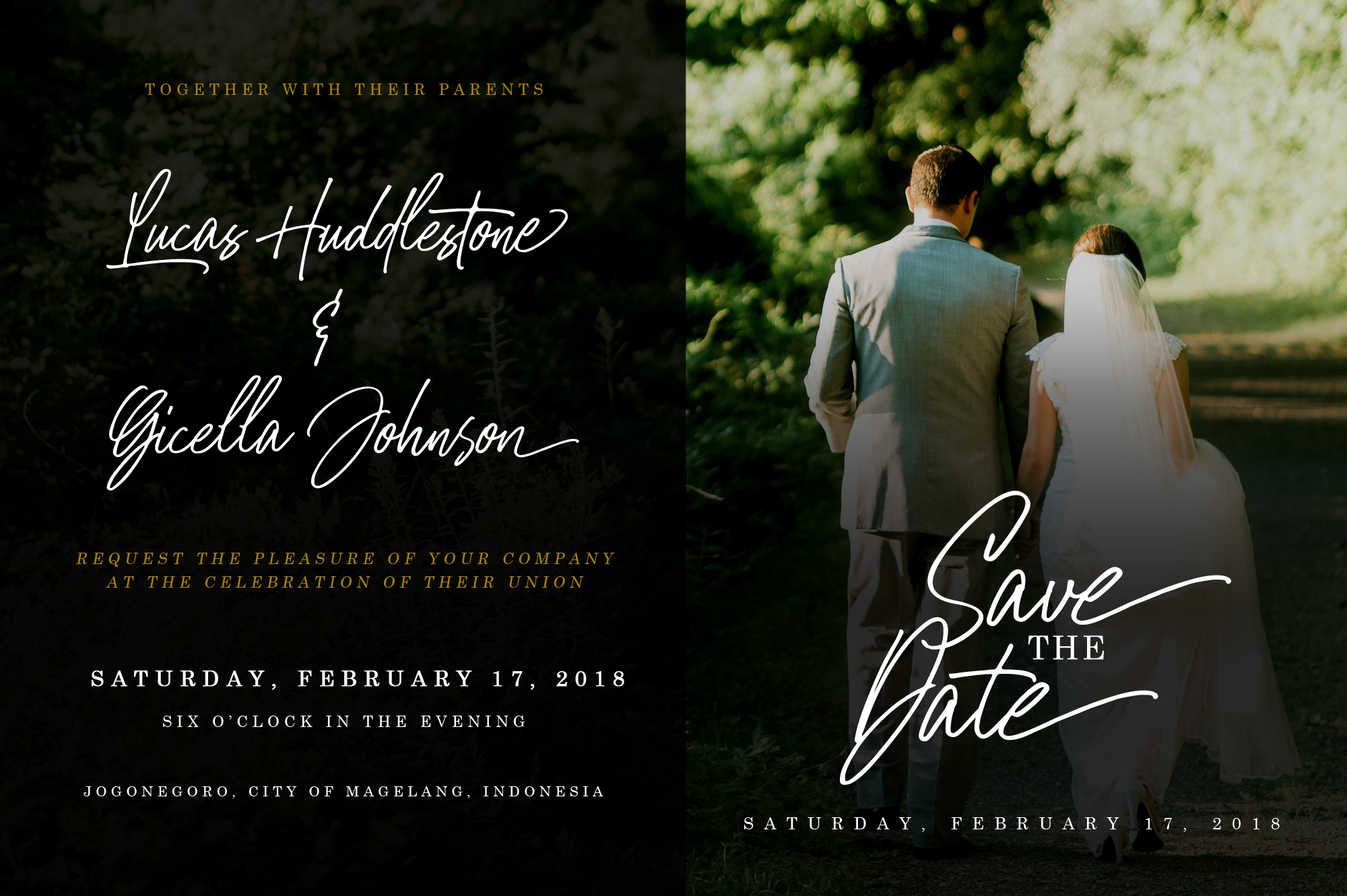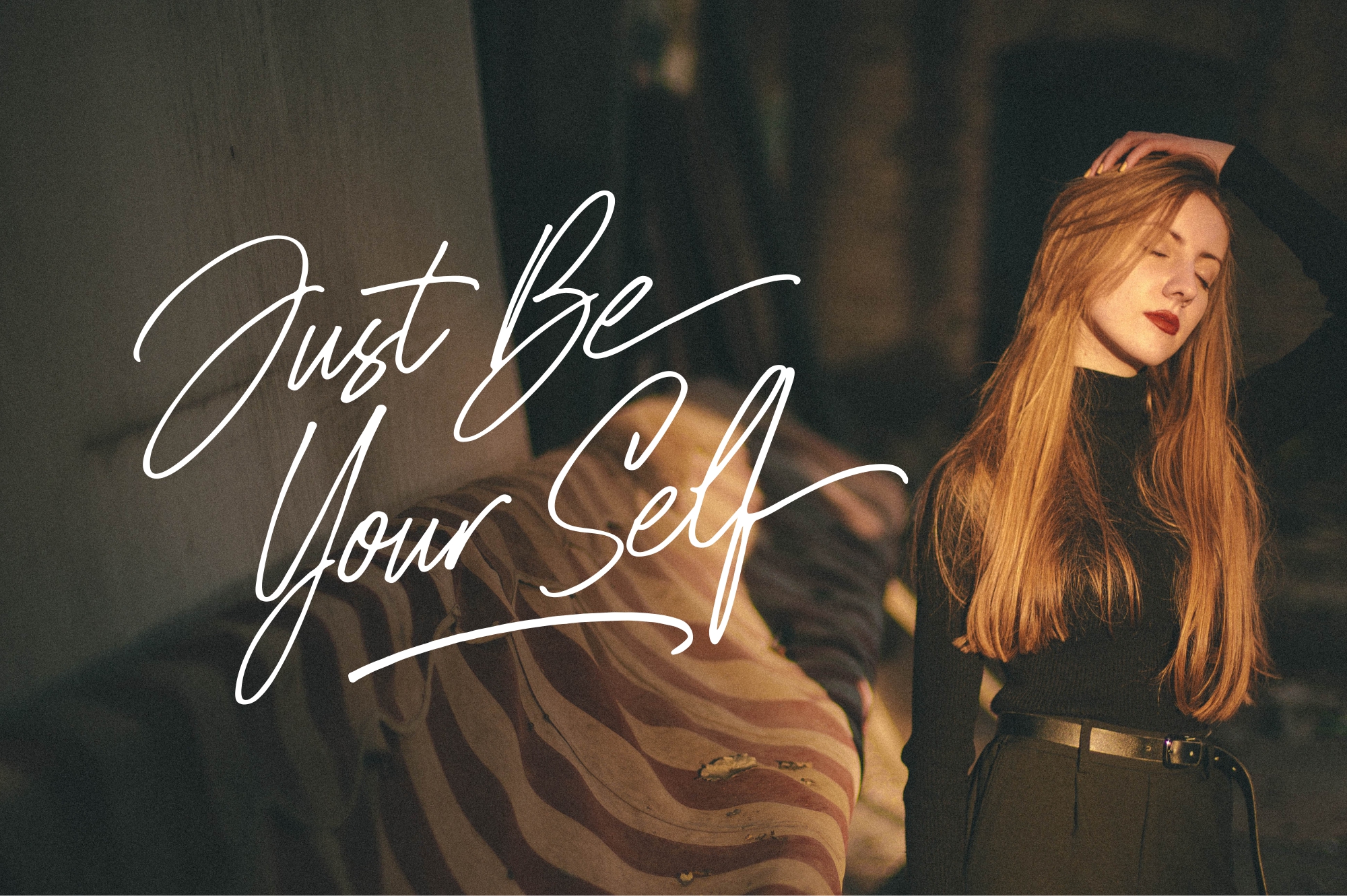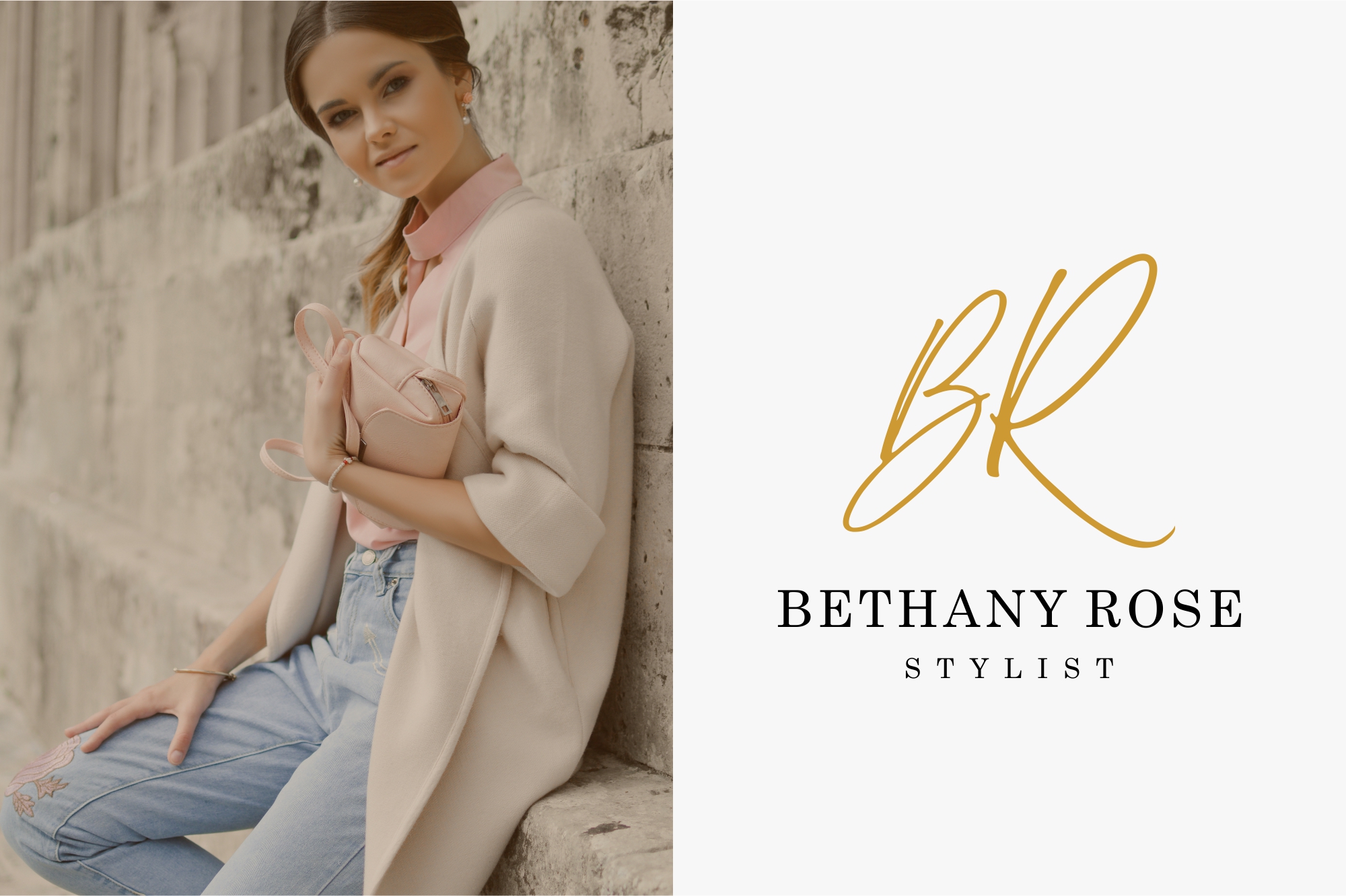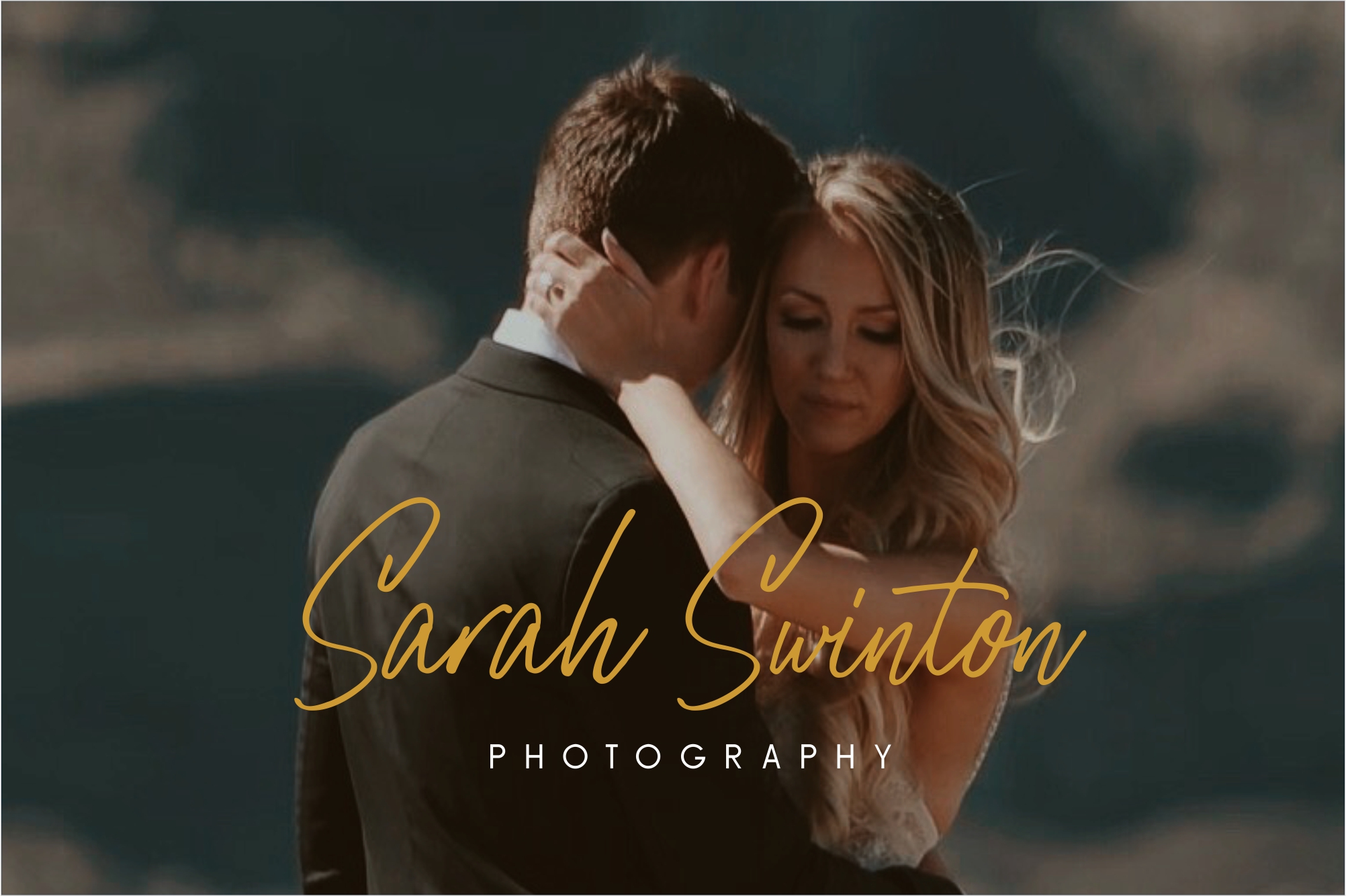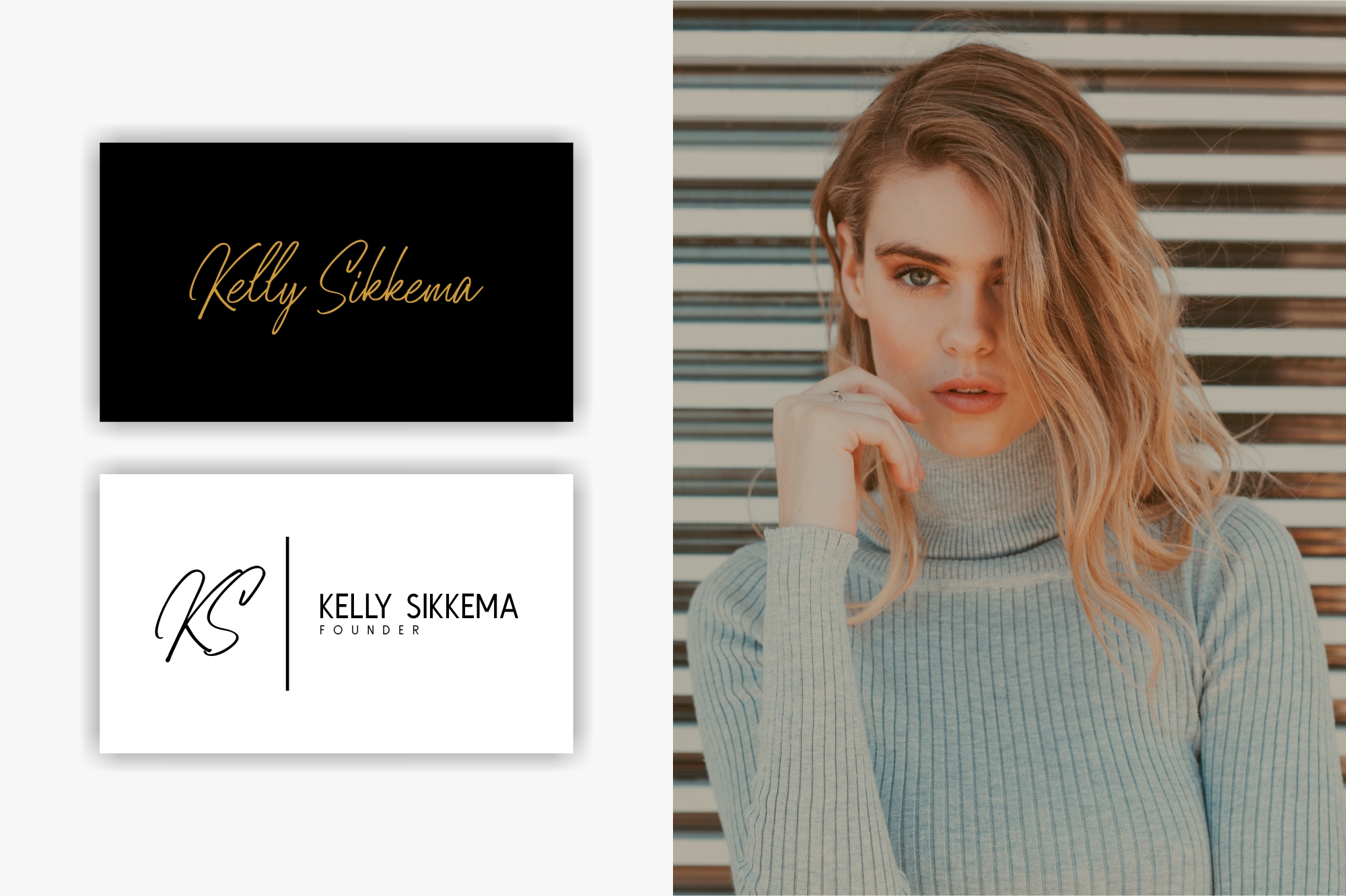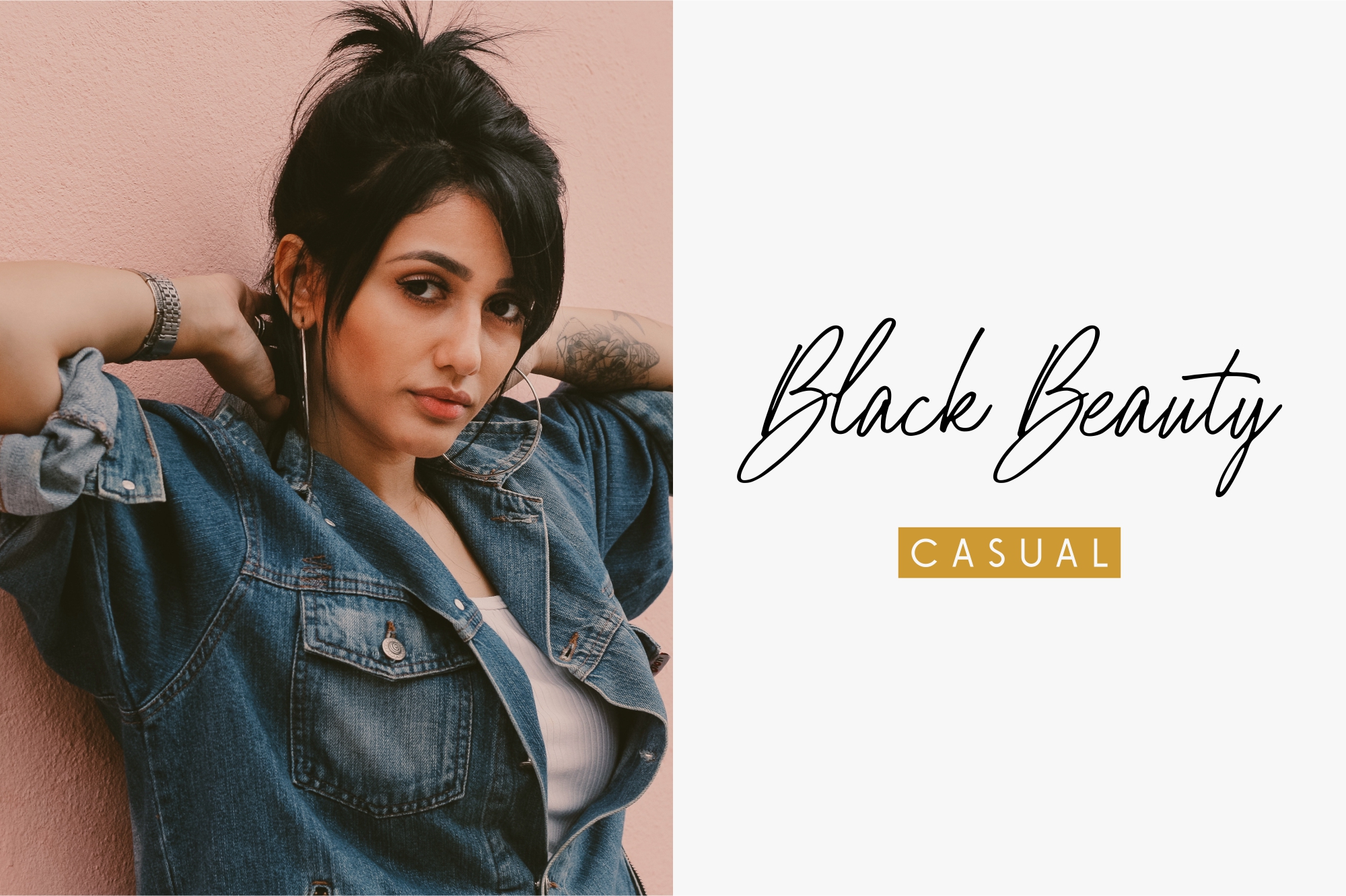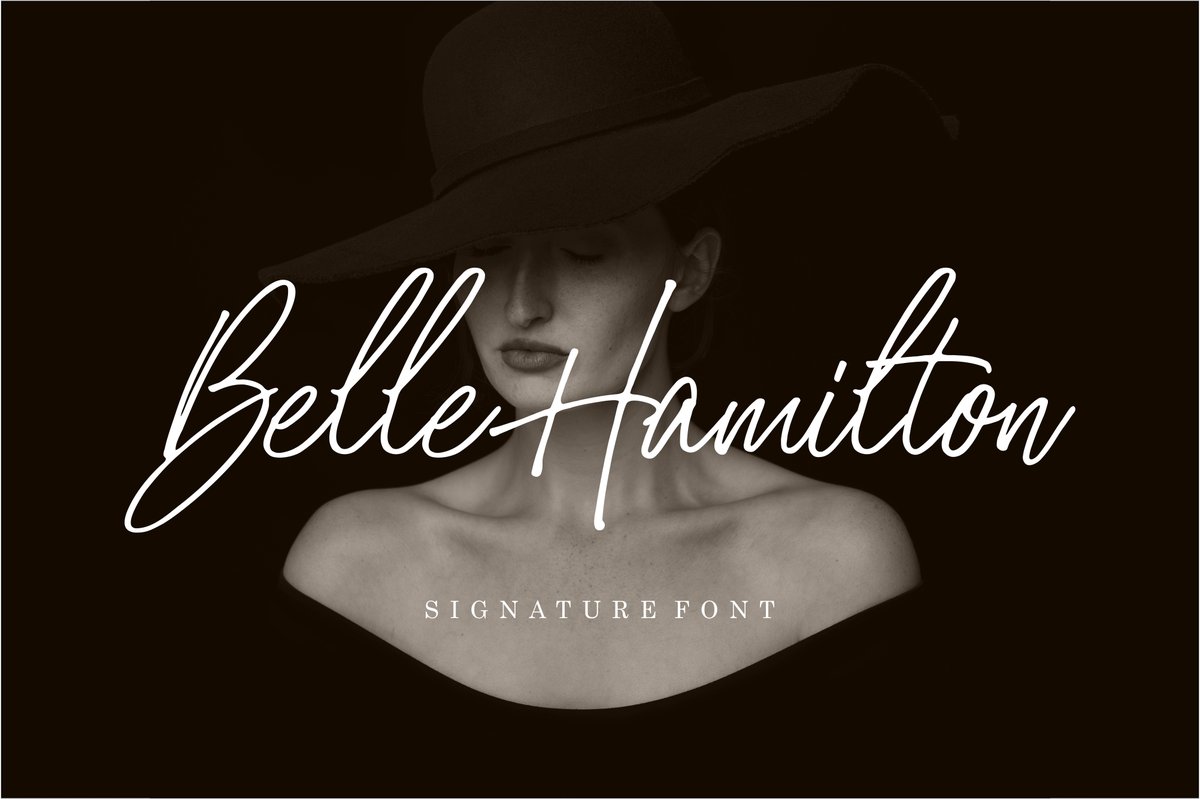
Discover the Timeless Elegance of the Belle Hamilton Font
Have you ever sat at your desk, staring at a blank page, and wondered how to bring your creative vision to life? The spark of inspiration strikes, and suddenly, you’re envisioning the perfect font to match your artistic style. That’s exactly what happened to me when I discovered the Belle Hamilton Font – a beautiful signature font with a natural flow that immediately captivated me.
Belle Hamilton Font is a stunning monoline signature font style that exudes elegance and sophistication. Its purpose is to add a touch of refinement to your designs, making it perfect for wedding invitations, branding, and any other project that requires a high-end feel. Whether you’re a seasoned designer or a creative enthusiast, the Belle Hamilton Font is an invaluable addition to your toolkit.
Belle Hamilton Font Key Features
- Font Size: The font comes in 7 weights, ranging from Thin to Extra Bold, offering a wide range of design possibilities.
- Unique Characteristics: Belle Hamilton Font features a unique blend of modern and vintage elements, with elegant lines and refined details, making it perfect for high-end branding and design projects.
- Language Support: Belle Hamilton Font supports a wide range of languages, including Latin, Cyrillic, and Greek, making it a versatile choice for global design projects.
Belle Hamilton Font Review
I recently had the chance to work with the Belle Hamilton font, and I must say it’s a delightful addition to any design project. ✨ The elegant script style is perfect for creating a sophisticated and refined look, making it ideal for wedding invitations, luxury branding, or any other high-end design.
- ✨ Versatility: The Belle Hamilton font is incredibly versatile and can be used in a variety of contexts, from formal events to elegant packaging.
- ✨ Legibility: The font is highly legible, even at smaller sizes, making it perfect for body text or headings.
- ✨ Aesthetic appeal: The Belle Hamilton font has a unique, hand-drawn feel that adds a touch of elegance to any design.
However, there are a few limitations to consider. ⚠️ The font may not be the best choice for projects that require a more modern or bold look, as it can come across as too traditional or conservative. Additionally, the font may require some adjustments to work well in digital formats, such as on screens or in mobile apps.
Overall, I’m impressed with the Belle Hamilton font and would highly recommend it for any design project that requires a touch of elegance and sophistication. While it may not be the best choice for every project, it’s certainly a valuable addition to any designer’s toolkit.
Tips for Getting the Most Out of the Belle Hamilton Font
For a vintage-inspired look, use the Belle Hamilton font in combination with distressed textures and watercolor effects.
For a modern look, use the Belle Hamilton font in combination with clean lines and minimal graphics.
The Belle Hamilton font is ideal for:
Vintage-inspired advertising and marketing materials
Handmade and craft-related projects
Q: Is the Belle Hamilton Font available in different weights and styles?
Yes, the Belle Hamilton Font family includes a range of weights and styles, including Light, Regular, Bold, and Italic. Each weight and style can be used to create a unique visual effect and add depth to your designs.